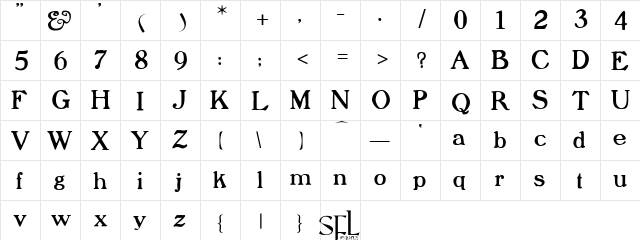
Ruffian Regular
Design Context for Ruffian Typeface
Ruffian offers clean, dependable letterforms without strong stylistic allegiance, making it a practical choice for designers who need flexibility.
Pro Tip: Use Ruffian in both headline and body roles to test its range before committing to a single application.